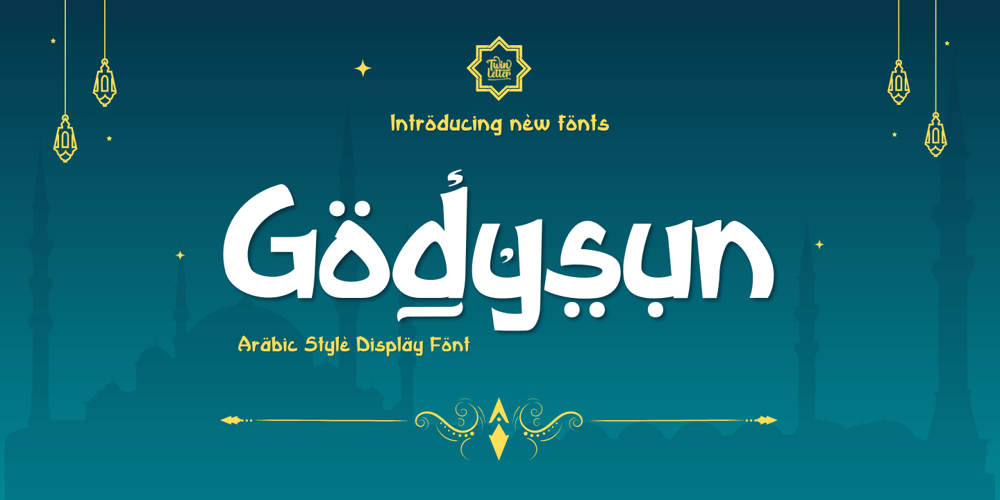
Godysun Font Family was designed by Rozikan and published by Twinletter. Godysun contains 1 styles and family package options. Godysun Arabic style font.Create the perfect Arabic and Islamic decorative design with this collection of exclusive value examples. With this stylish font, you can create all kinds of themes, from elegant to modern, and get the same result as shown. To get a variety of styles into your projects, they come in both upper and lower case, as well as several Alternates. You will be able to easily create quality designs.